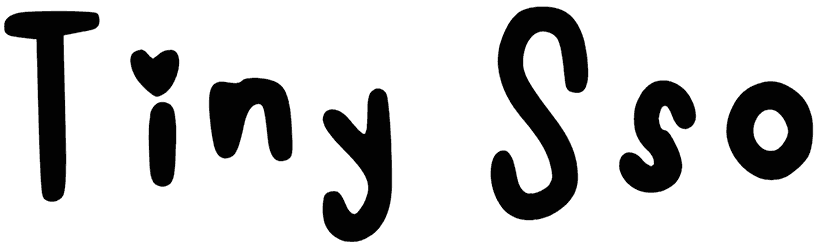
Tiny Sso Font
Engage in a lifelike sense, and love fonts, find the amazing best of them in this latest collection offered by RB! Tiny Sso, with cartoonish characters, is one of those chances that not everyone gets. This A-Z script font holds a funny essence that can be set on cartoons, storybook covers, animations, vision games, and greeting cards to shine and warranty a booming effect.